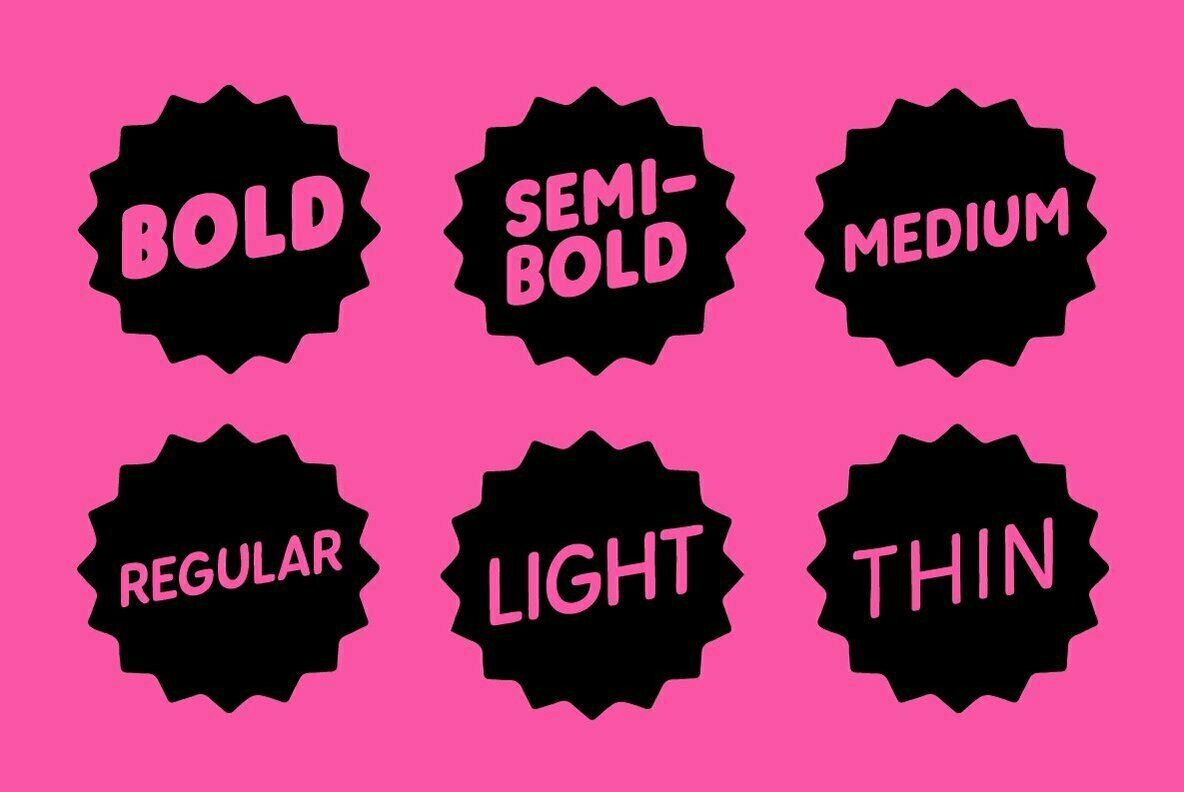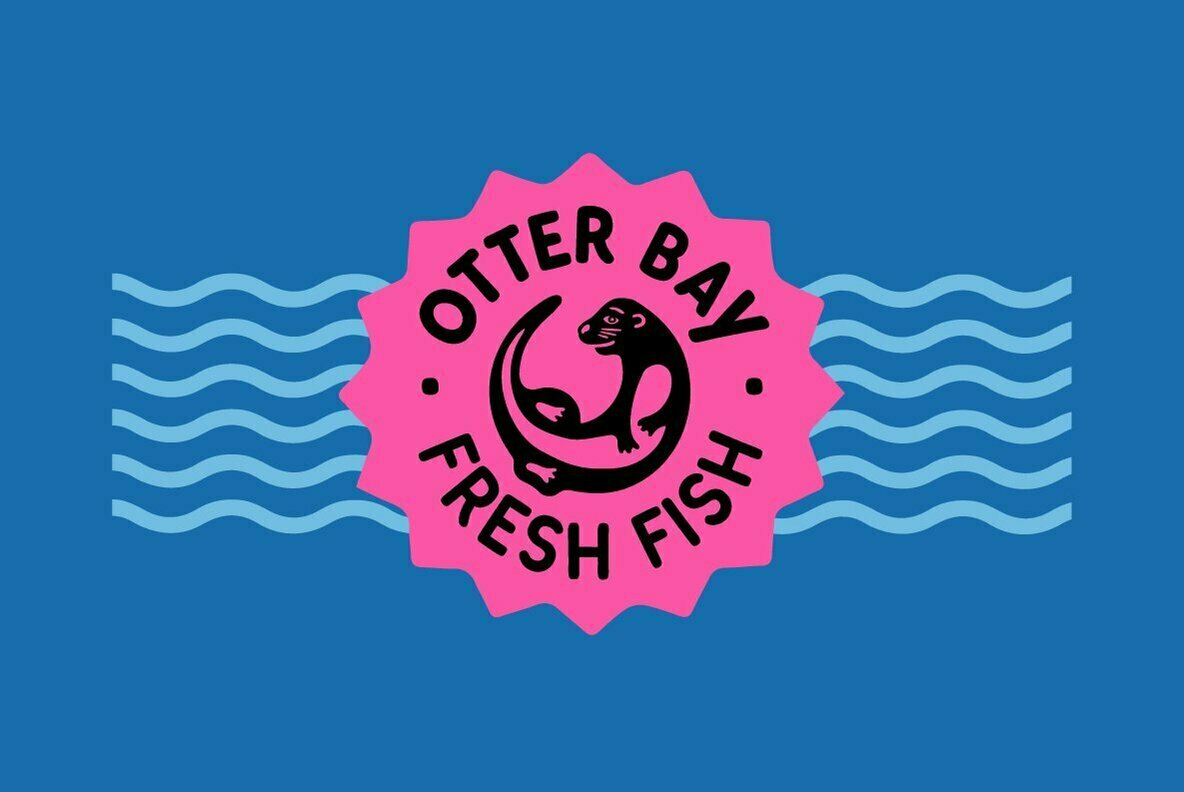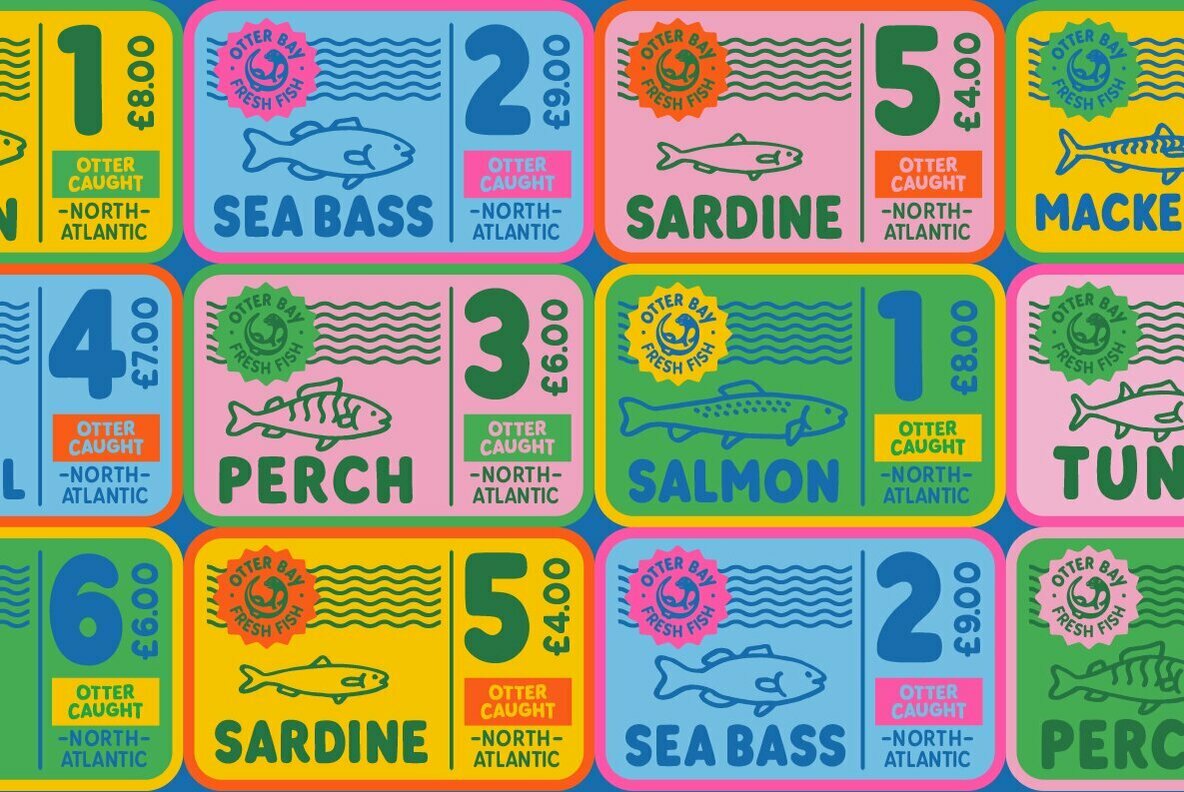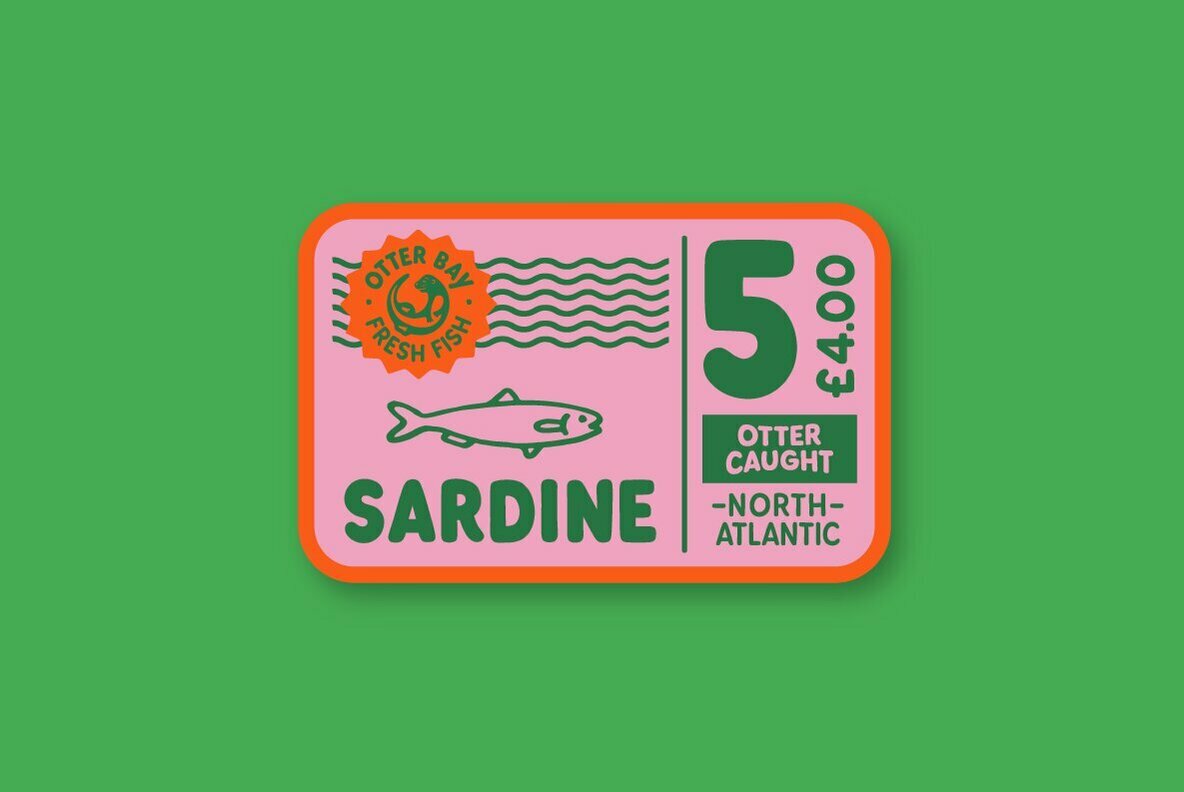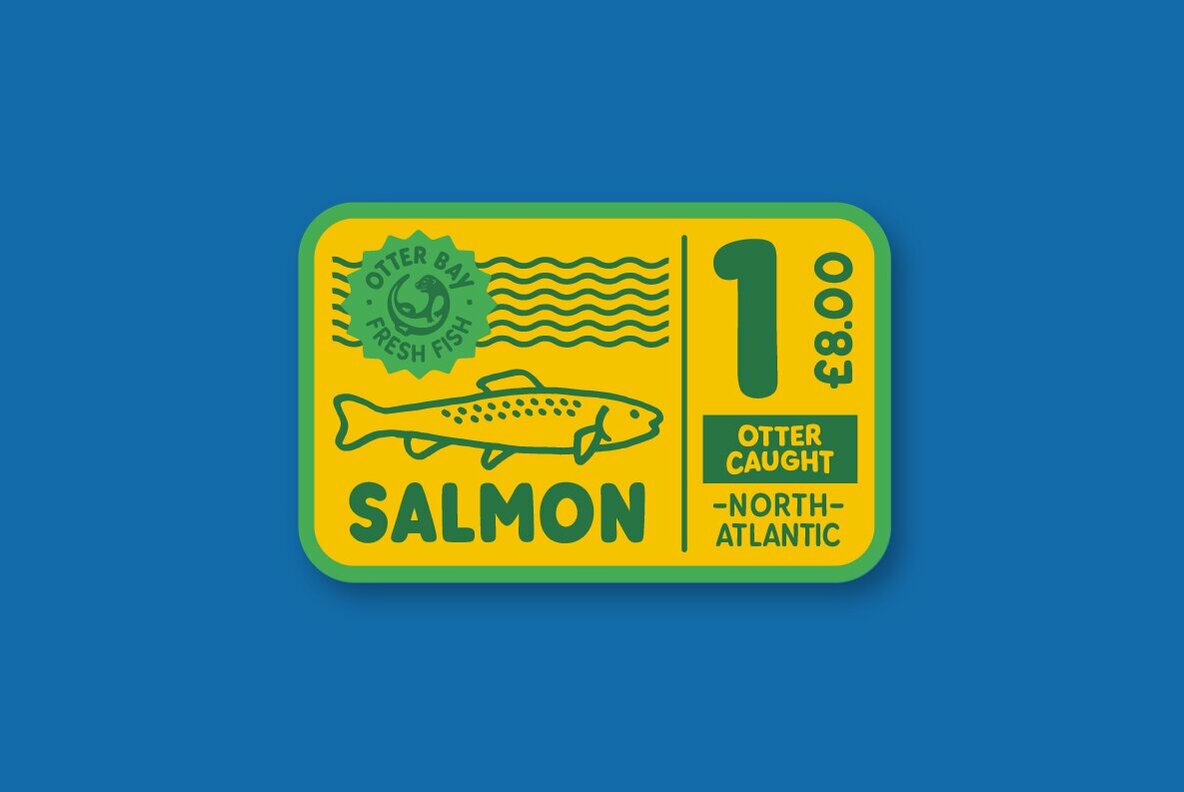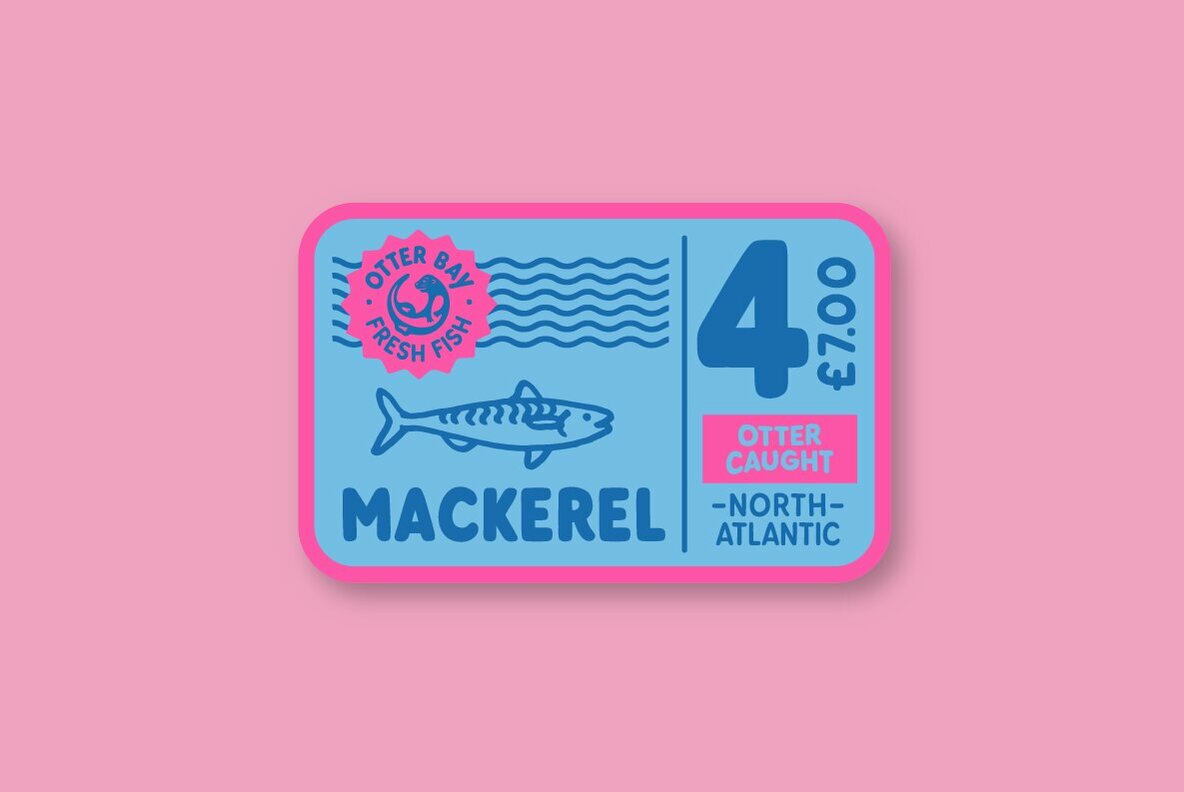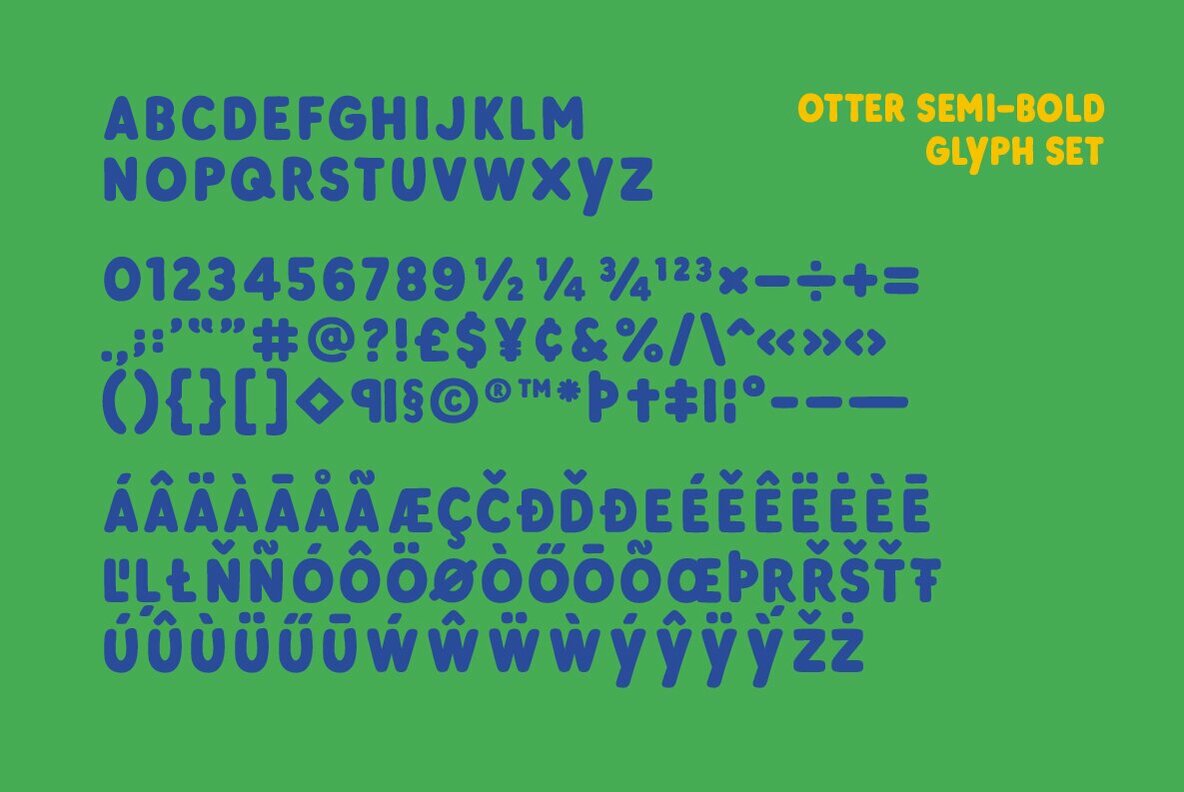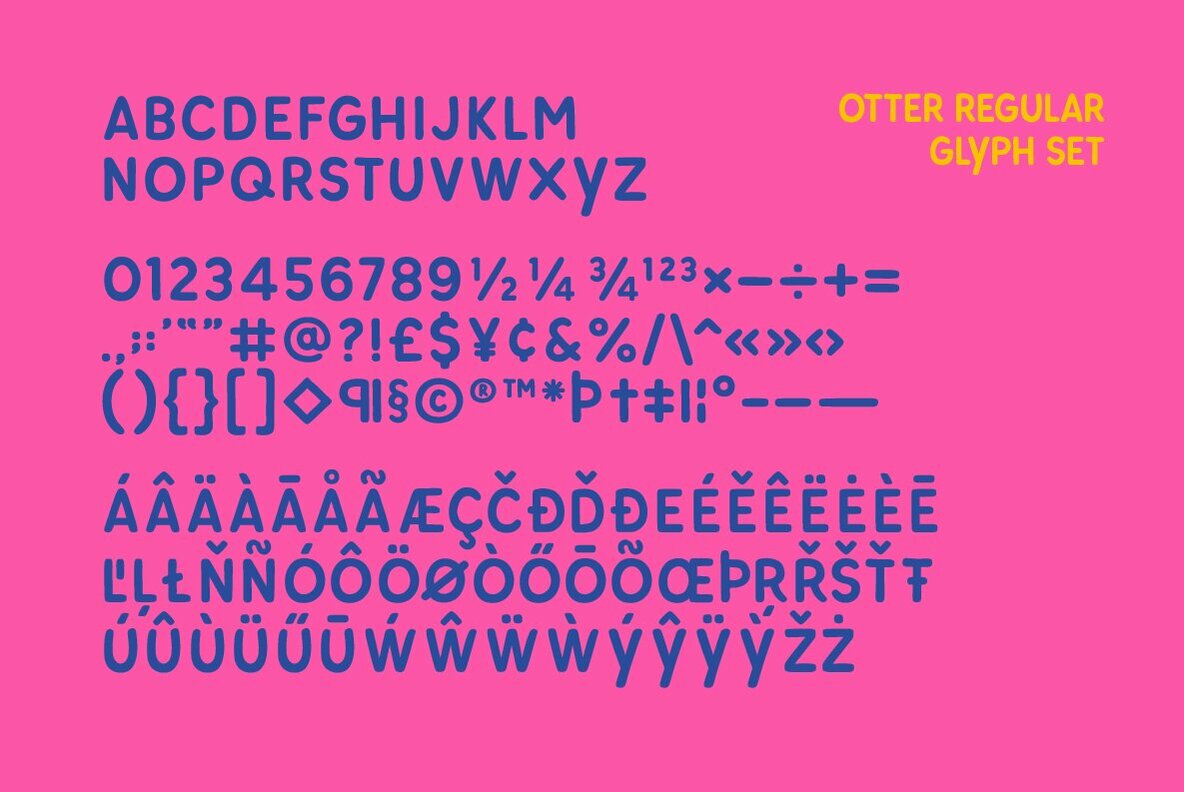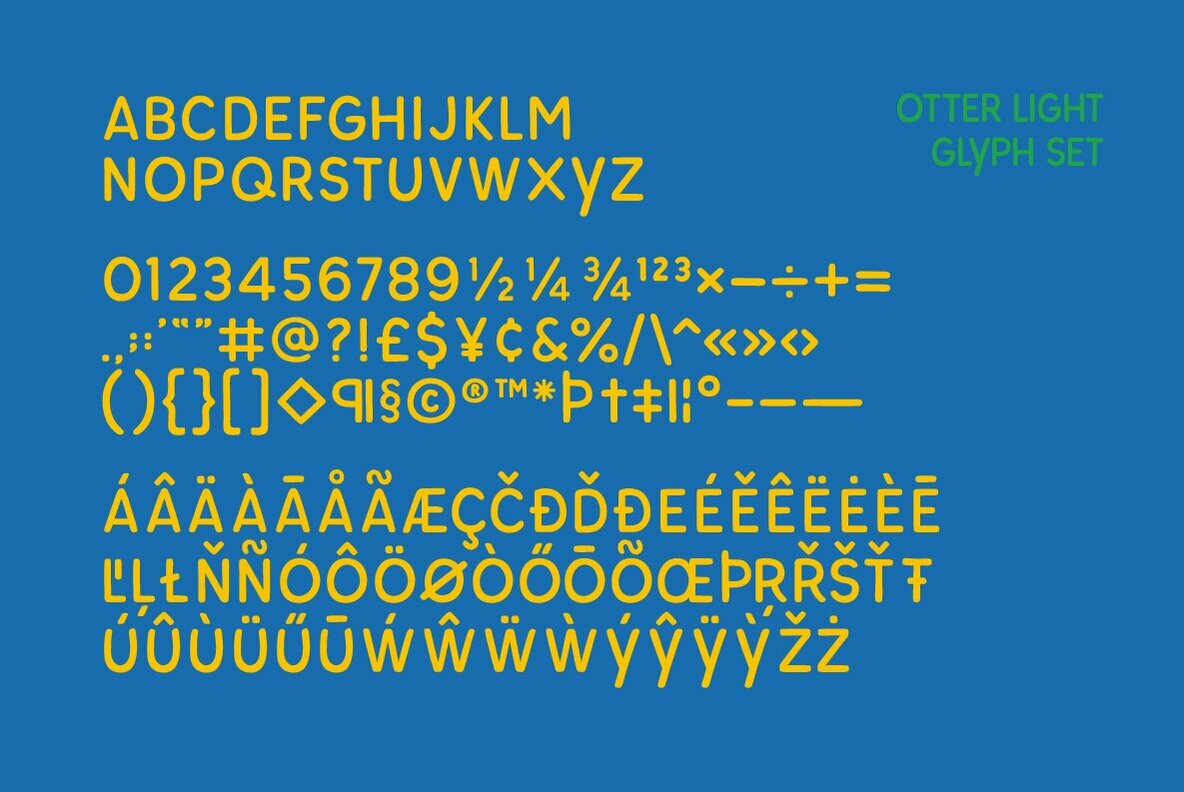
Otter Font
With a keen eye for detail and friendly nature, the otter was the perfect inspiration for this playful sans serif typeface.
The family of otters consists of 6 styles to be treated with care.